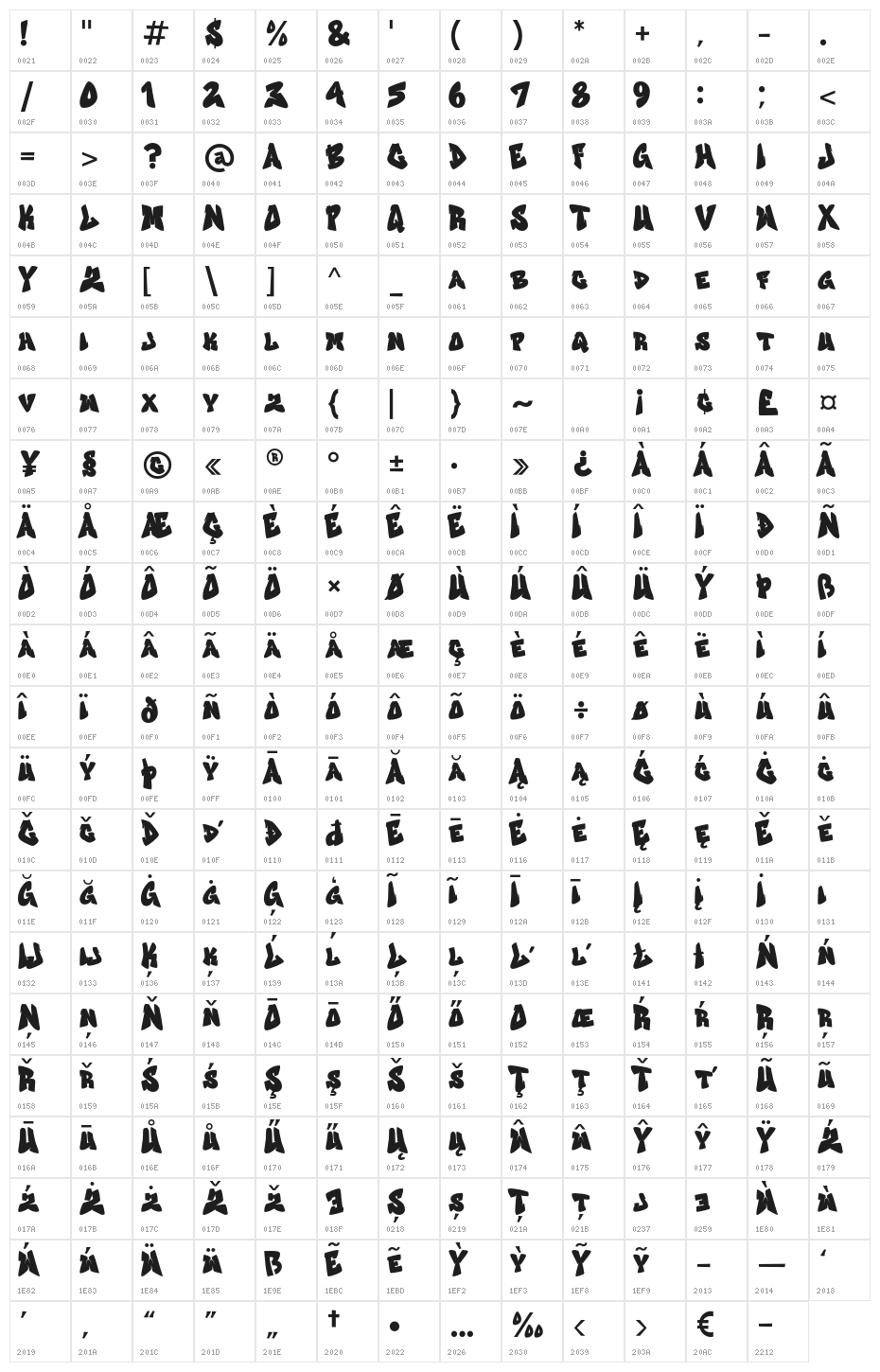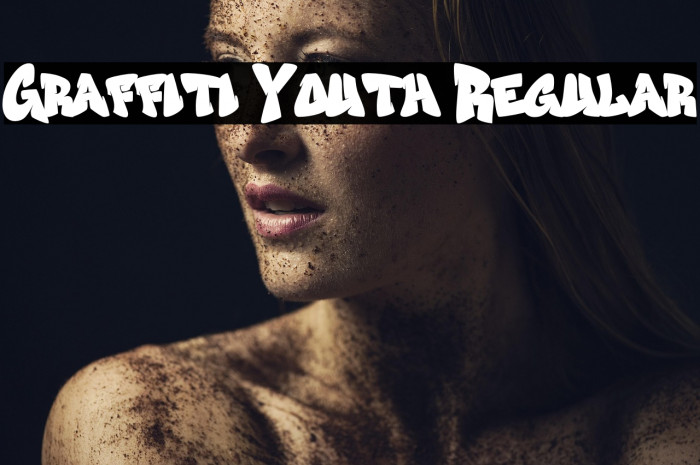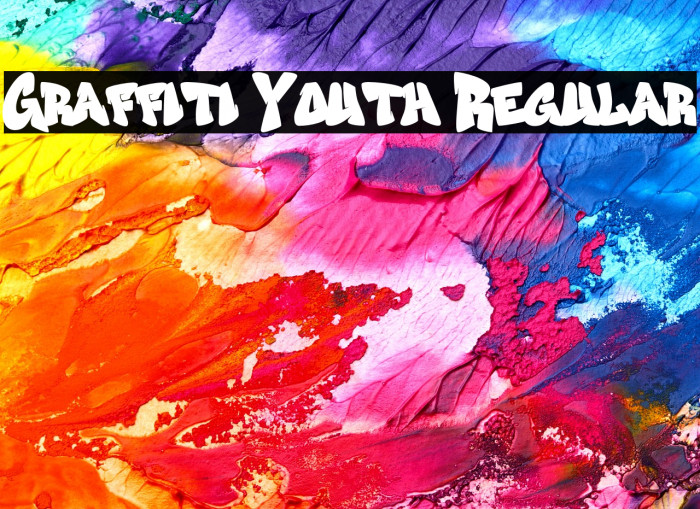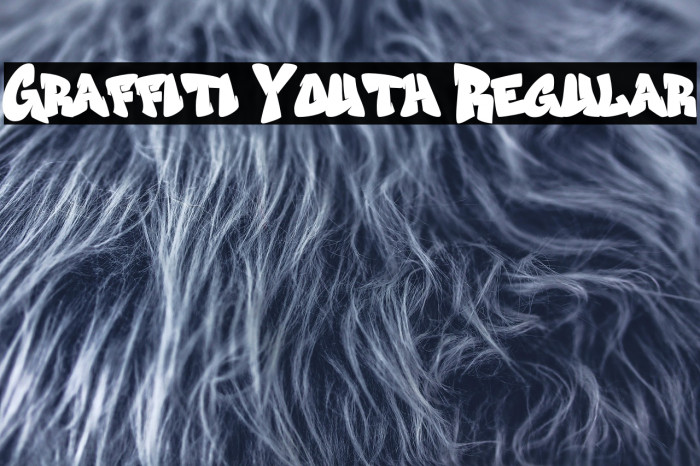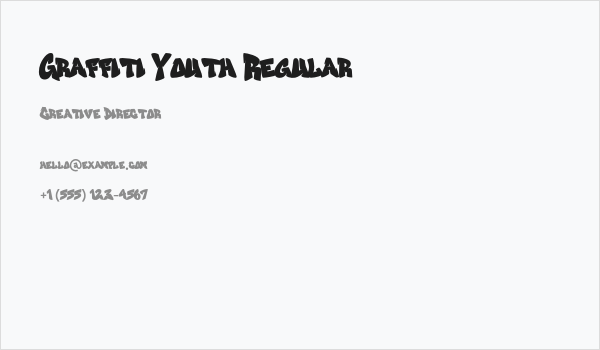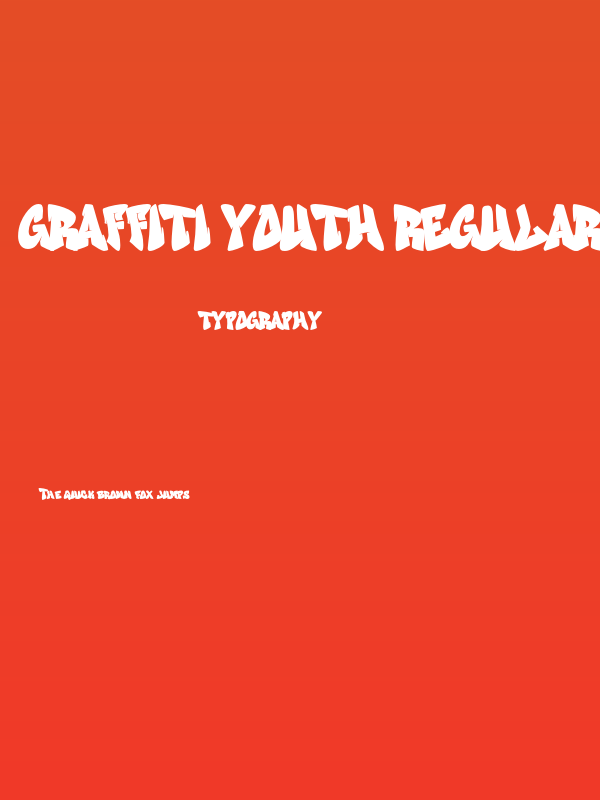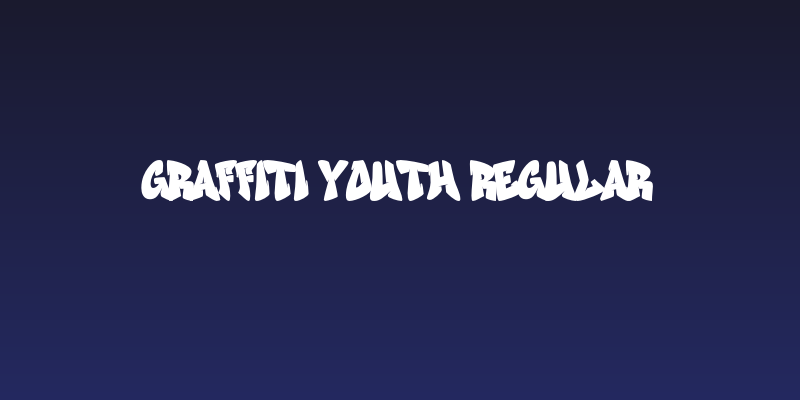
Graffiti Youth Regular Font
Graffiti Youth Regular Description
This font exudes a bold and energetic graffiti style, characterized by thick, rounded strokes and a dynamic, playful appearance. The letters are heavily stylized, with exaggerated curves and angles that mimic the spontaneous and artistic nature of street art. The uppercase and lowercase letters maintain a consistent visual weight, creating a cohesive look throughout. Numbers and special characters are equally bold, ensuring they stand out prominently. The overall design is eye-catching and vibrant, making it ideal for projects that require a youthful and rebellious aesthetic.
| Overall Style | Modern, Urban, Energetic |
| Use Case | Headlines, Posters, Branding |
| Proposed Projects | Ideal for street art-themed designs, youth-oriented branding, posters, and urban event promotions. |